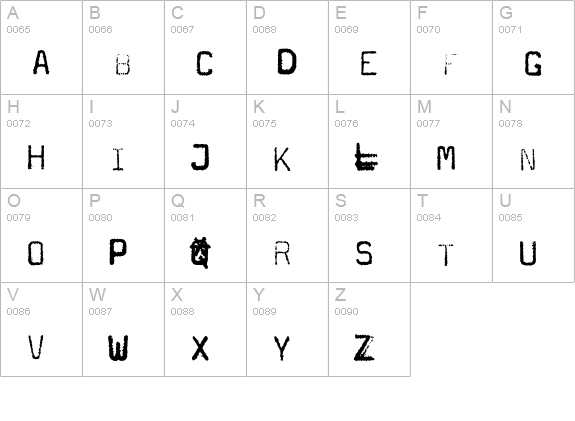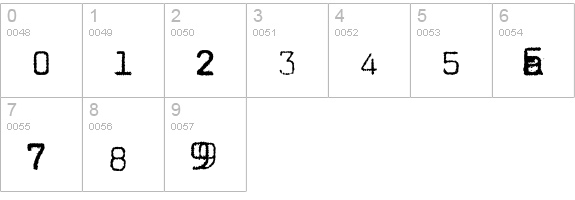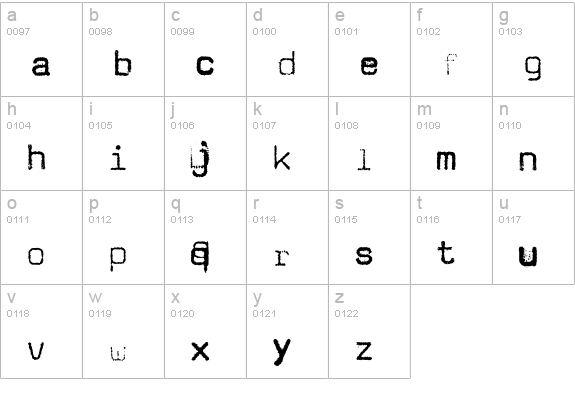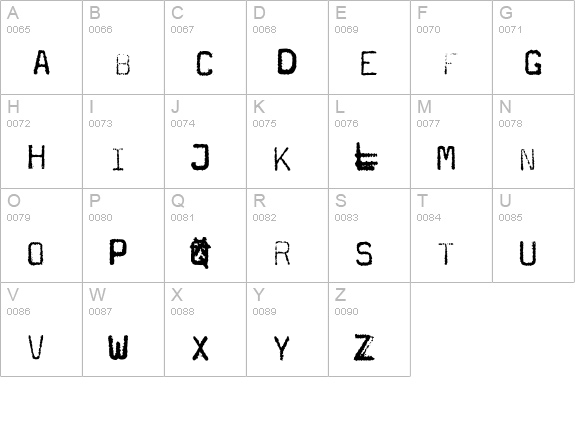
Introducing Magda-Mixed Font, a captivating typeface that combines the elegance of serif fonts with the versatility of sans-serif fonts, resulting in a unique and eye-catching design. This font effortlessly blends smooth curves and sharp edges, creating a harmonious balance that is visually appealing. Magda-Mixed Font is perfect for a wide range of creative projects, from branding and logos to headlines and titles. Its distinct character and modern aesthetic make it suitable for both print and digital mediums, ensuring that your message stands out in any context. With its extensive character set, Magda-Mixed Font provides endless possibilities for customization and creative expression. Whether you're designing a magazine layout, creating a beautiful website, or crafting a compelling social media post, this font offers the flexibility and versatility you need to bring your vision to life. What sets Magda-Mixed Font apart is its accessibility. It is freely available to download at FontsMarket.com, allowing designers, artists, and enthusiasts alike to easily access and utilize this incredible typeface. This means that you can incorporate this stunning font into your projects without any restrictions or limitations. Furthermore, Magda-Mixed Font is designed with utmost attention to detail, ensuring that every letter and character is carefully crafted to perfection. The result is a font that not only looks visually stunning but also maintains excellent legibility even at smaller sizes. Whether you're a professional designer or an aspiring creative, Magda-Mixed Font is a must-have addition to your font collection. Its unique blend of elegance and versatility, coupled with its availability for free download at FontsMarket.com, makes it an invaluable resource for all your design needs. Elevate your projects to new heights with Magda-Mixed Font and watch as your creations come to life with style and sophistication.